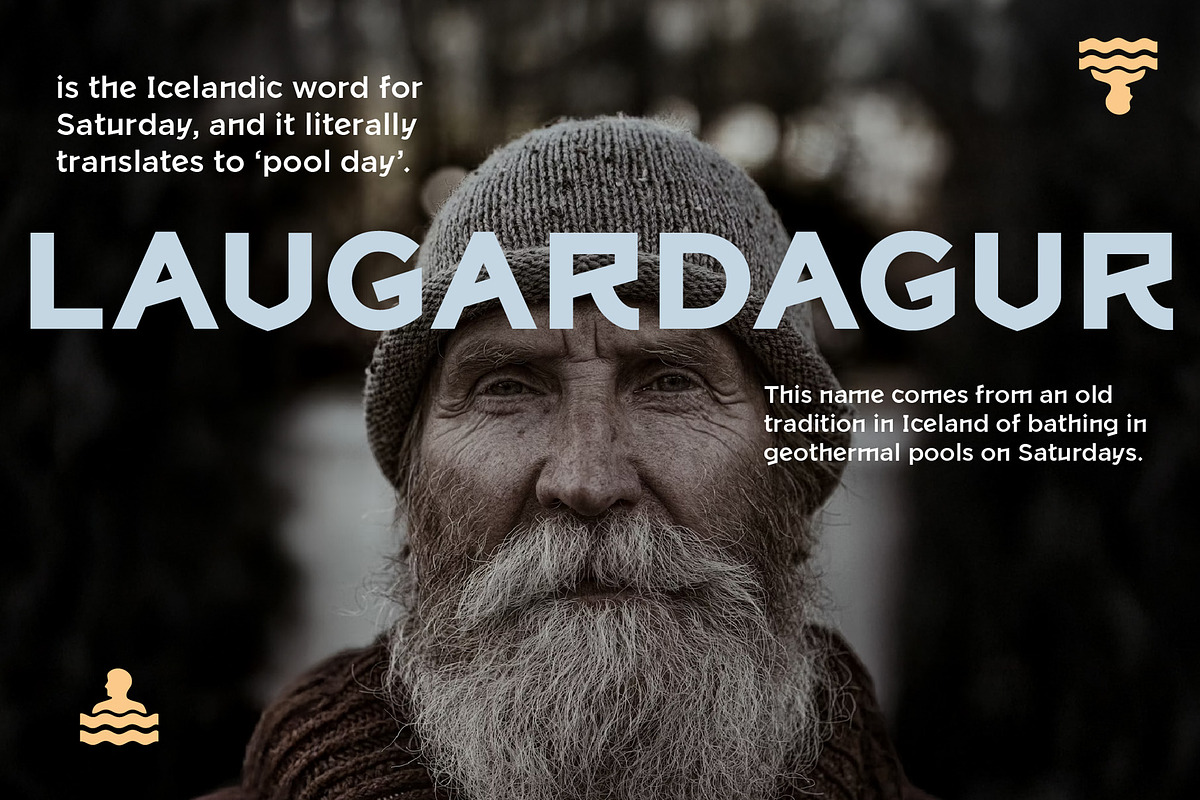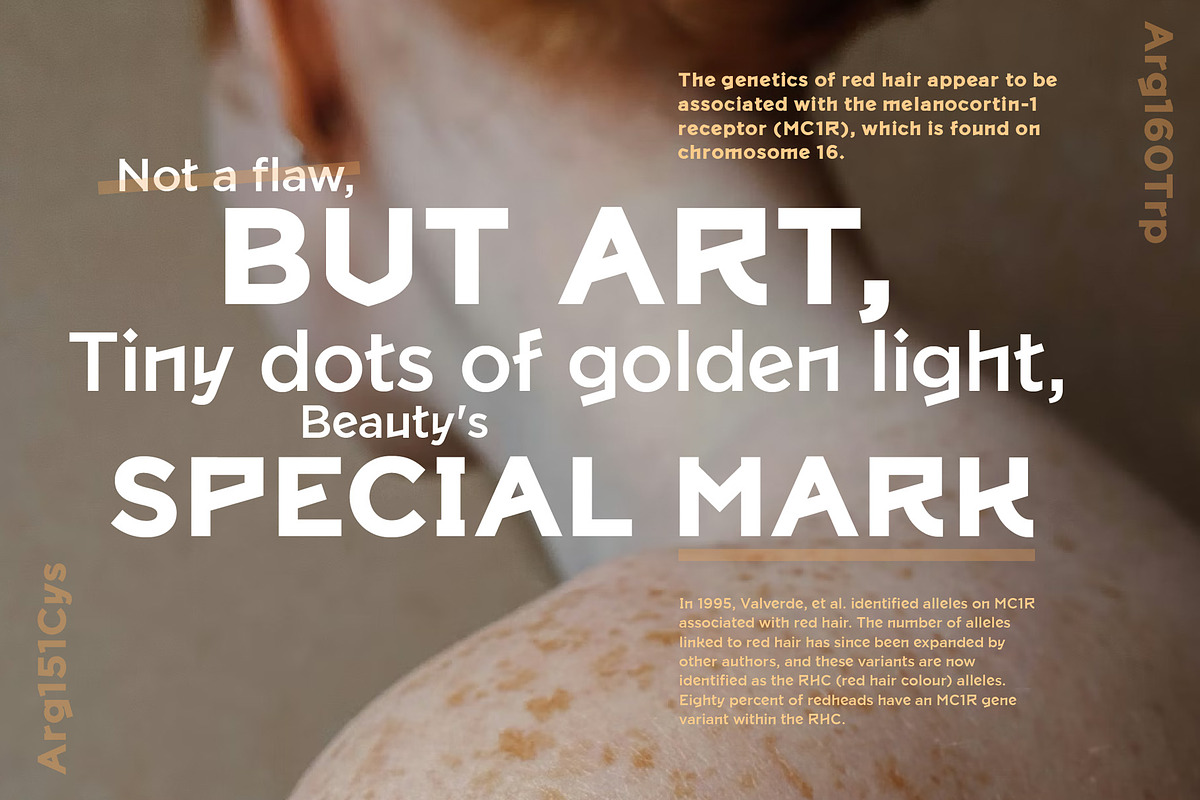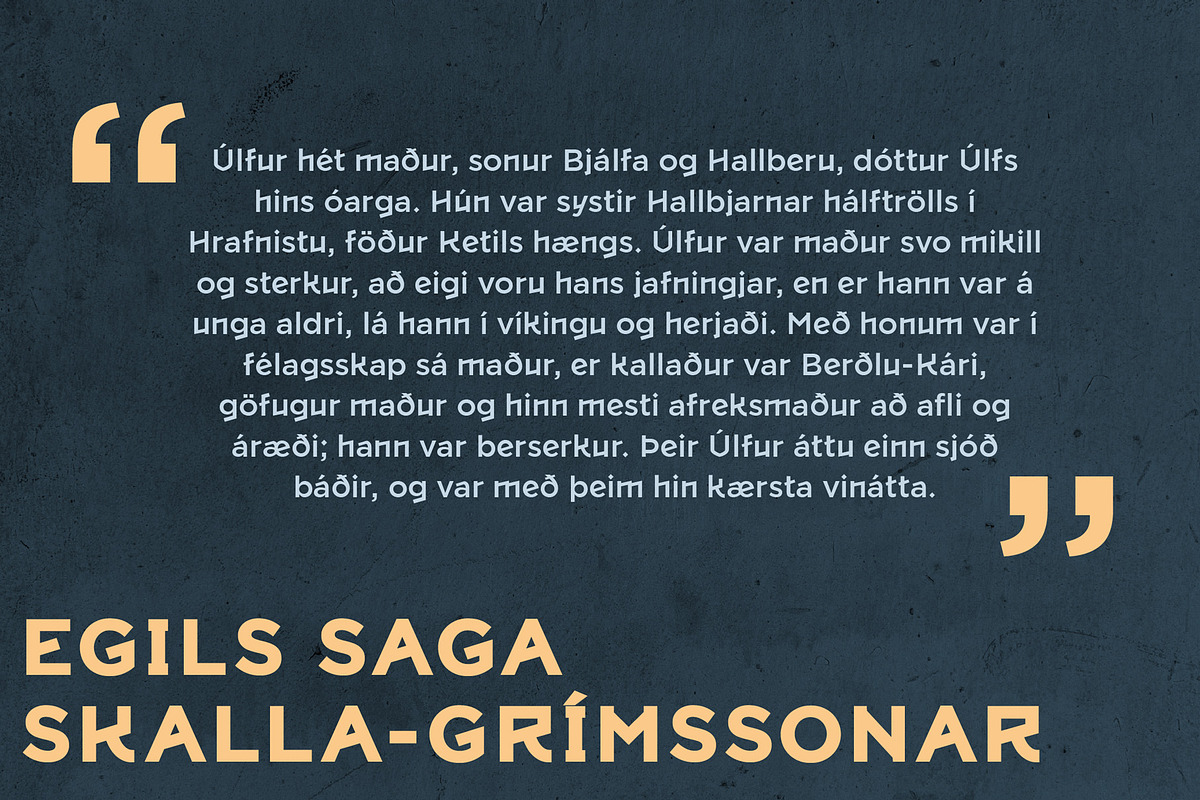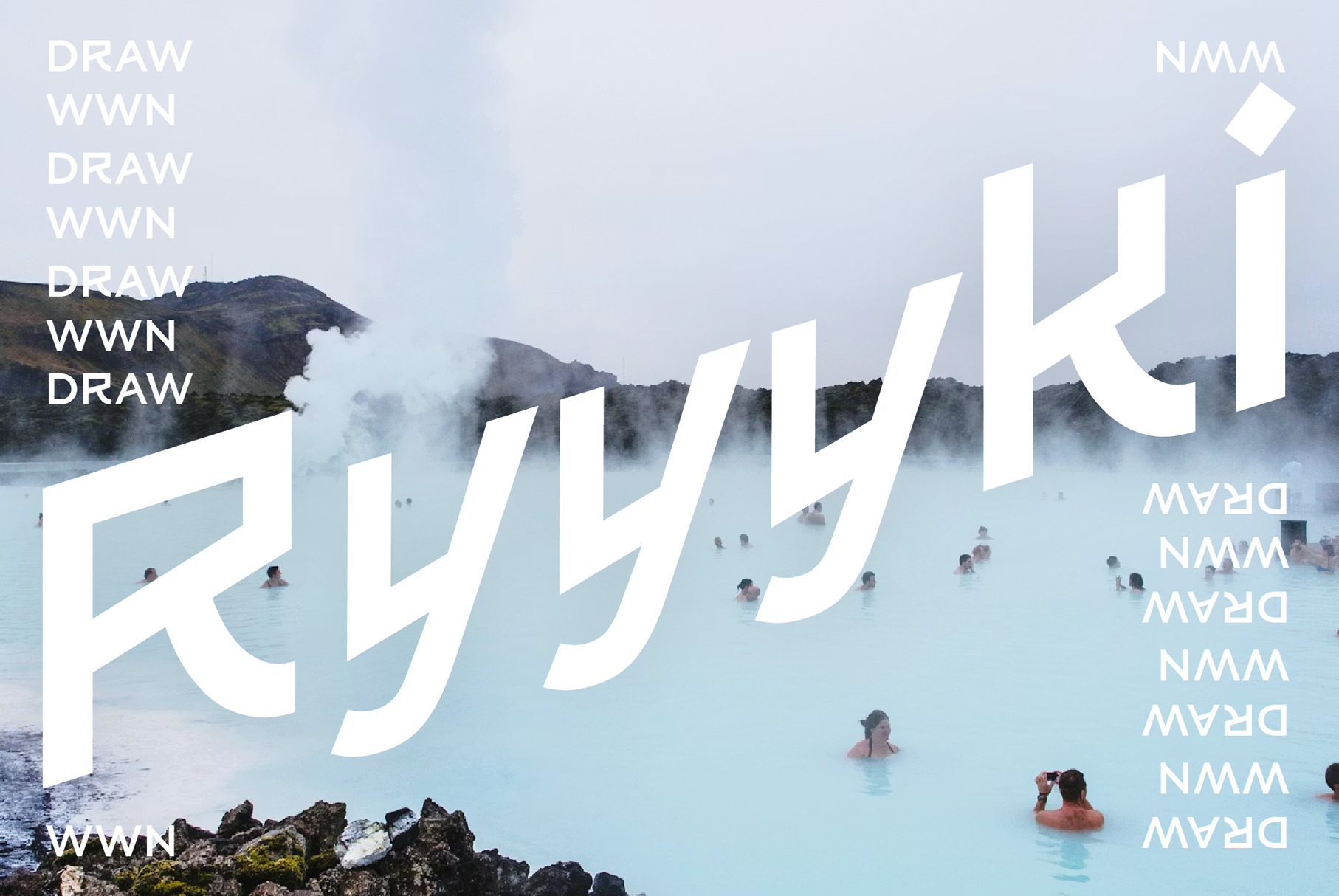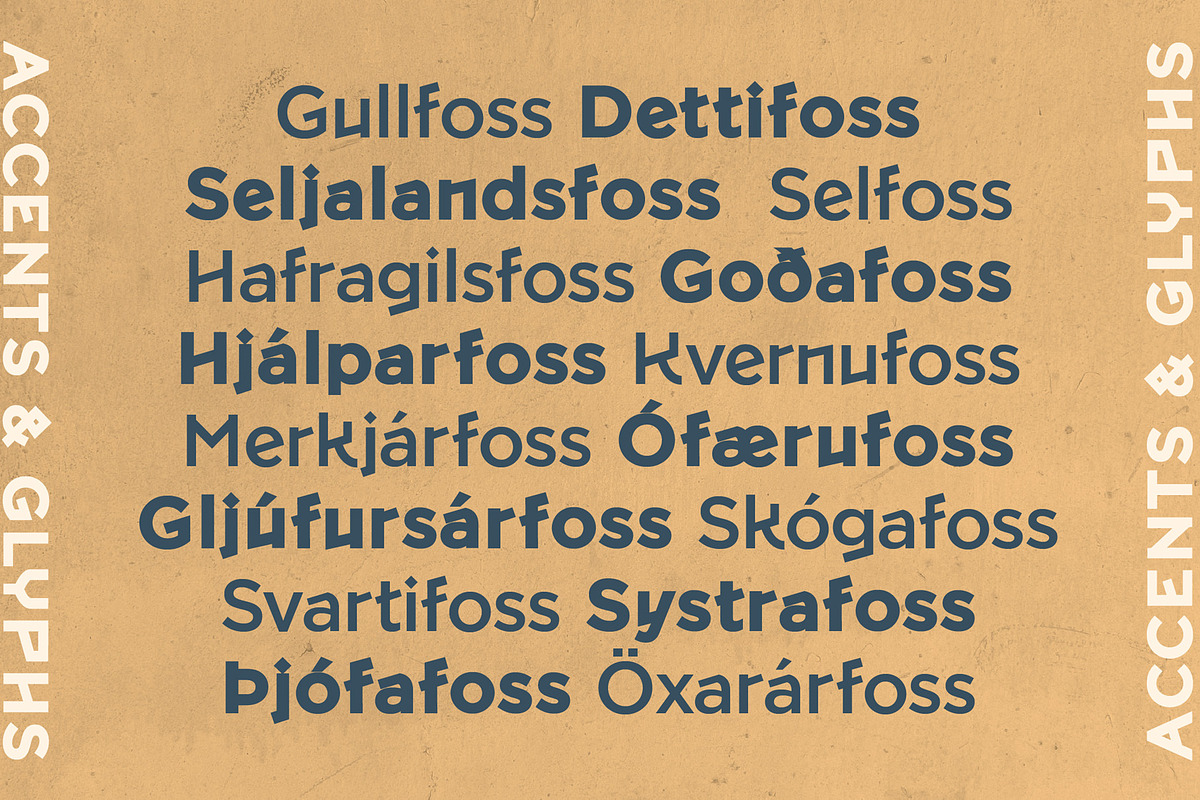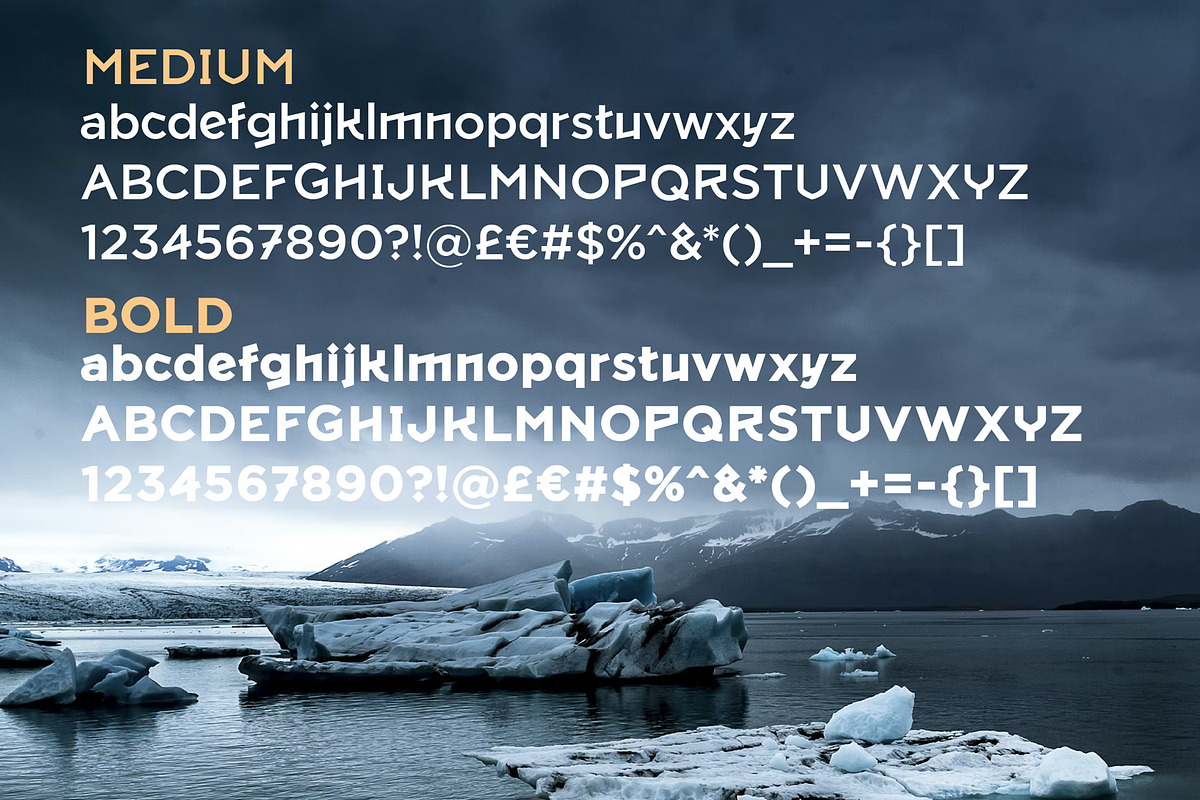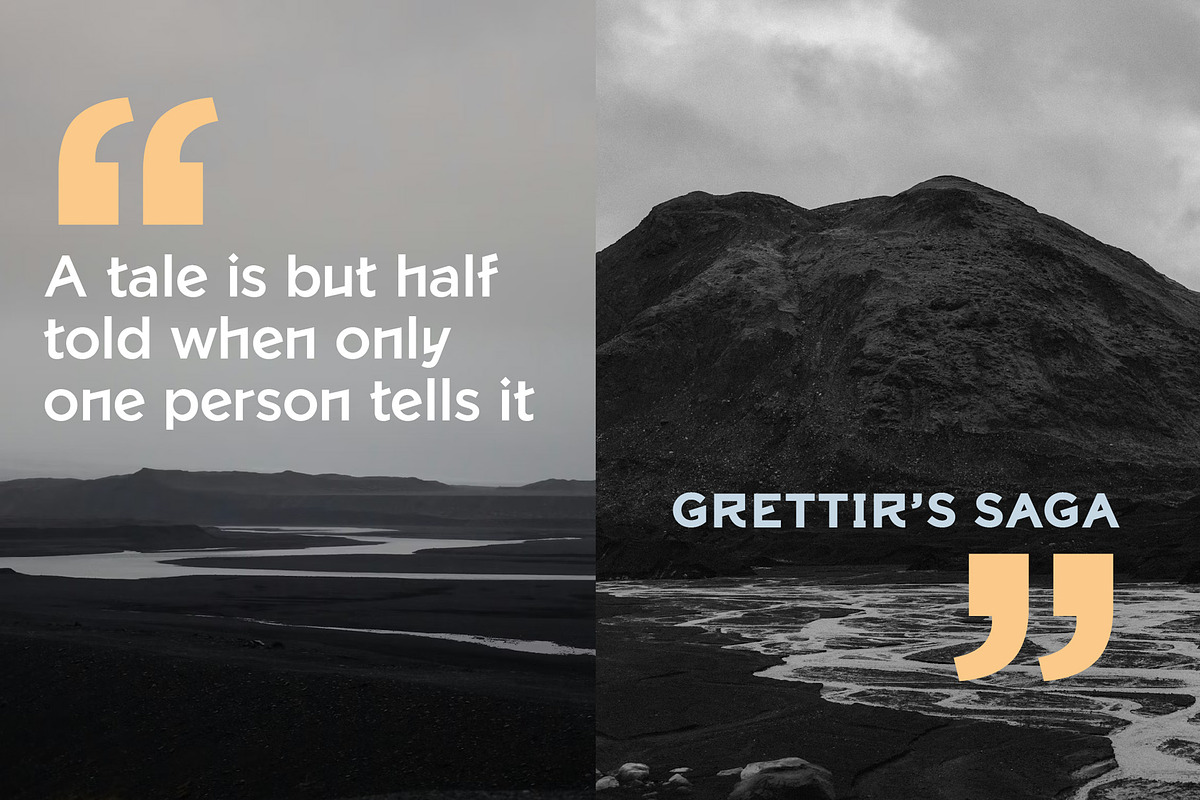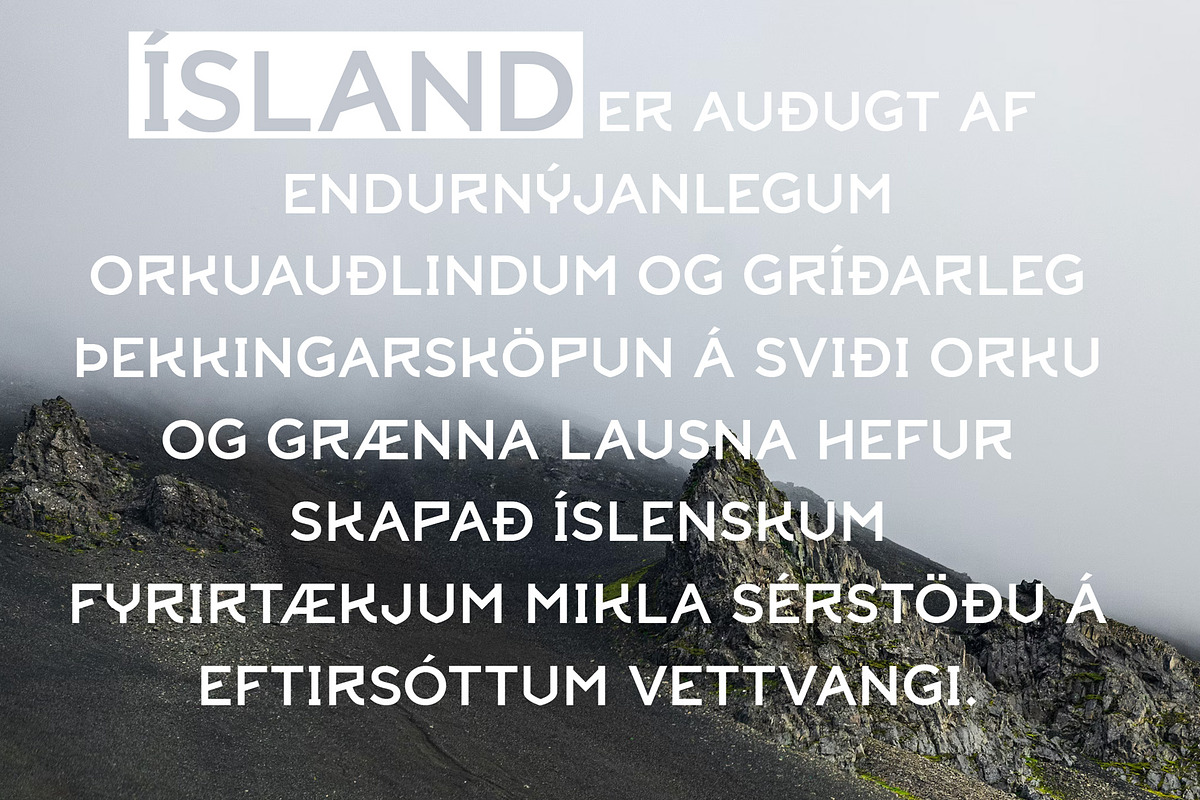
Ryyyki | Angular Sans Serif Font
Ryyyki is a sharp, Scandinavian‑influenced serif that merges angular forms with subtle runic references. Inspired by Icelandic folklore and named after Reykjavík (“smoky bay”), the typeface captures a sense of Nordic atmosphere and quiet mythology. Its distinctive letterforms feel both carved and contemporary, bringing a cool, confident edge to branding, fashion, and magazine design—ideal for projects that seek visual impact with character and restraint.